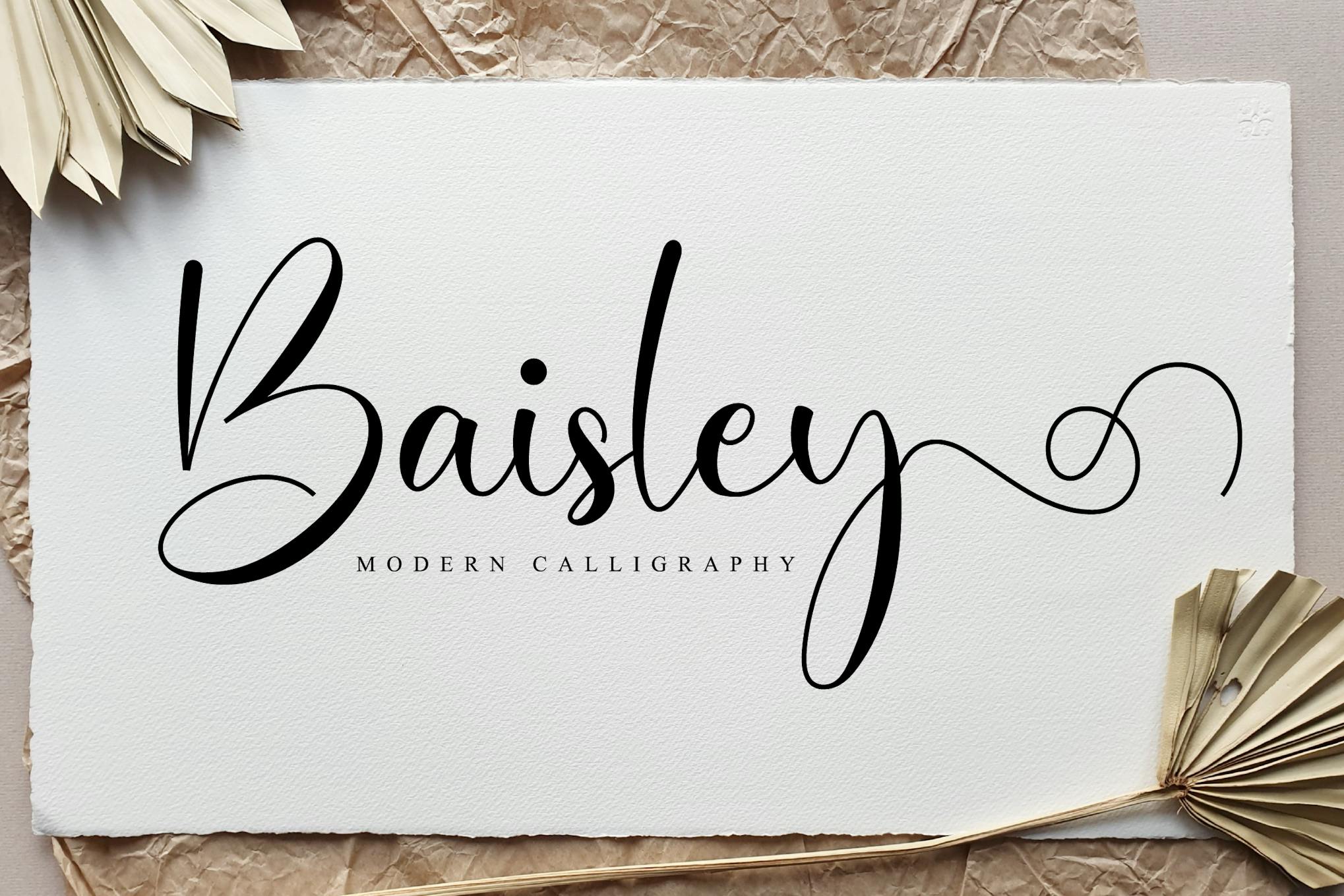
Baisley - Wedding Font
The Baisley - Wedding Font excels in graceful design applications including elegant wedding invitations, graceful bridal branding, sophisticated ceremony logos, refined product packaging, graceful business cards, elegant portfolios, sophisticated greeting cards, graceful social media graphics, elegant event signage, and refined marketing materials. Its graceful script style makes it perfect for projects requiring elegant sophistication that communicates grace and establishes refined brand positioning with audiences seeking graceful wedding experiences and elegant sophistication.
What makes the Baisley - Wedding Font truly exciting is its exceptional ability to capture the graceful elegance and sophisticated beauty of refined weddings through gracefully crafted letterforms. The font features flowing, graceful strokes with elegant flourishes and sophisticated proportions that create a distinctly refined appearance. Each character displays remarkable attention to graceful detail with elegant curves, sophisticated connections, and graceful spacing that give text a beautifully elegant, hand-lettered quality. The font's graceful character and elegant rhythm create an atmosphere of sophisticated elegance while maintaining graceful refinement and wedding authenticity.
The Baisley - Wedding Font family typically includes regular weight with extensive character coverage, featuring uppercase and lowercase letters, numerals, punctuation marks, and international characters. The typeface often incorporates stylistic alternates, contextual ligatures, and graceful swashes that enhance its signature elegance. These additional elements provide designers with creative flexibility to customize text appearance and achieve more natural-looking graceful handwriting that reflects the font's elegant and sophisticated character.
This graceful signature font distinguishes itself through its remarkable balance of elegant charm and sophisticated presentation. Unlike harsh or ungraceful fonts that lack elegant appeal, Baisley - Wedding Font embraces the power of graceful design to create sophisticated connections with elegant wedding audiences. The font's graceful character makes it essential for elegant wedding planners, sophisticated brands, and refined celebration businesses where creating graceful wedding experiences and elegant memories is fundamental to success in sophisticated wedding markets.
Baisley is a beautiful script font. It has a classy, elegant, and modern look. This font is the perfect fit for all of your logos, branding, social media, and crafty DIY projects. What's Included: Baisley - TTF, OTF, WOFF PUA encoded = Accessible in the Adobe Illustrator, Adobe Photoshop, Adobe InDesign, even work on Microsoft Word. PUA Encoded Characters - Fully accessible without additional design software. Each Font Has: Modern Handwritten Font Beautiful Swash (Ending tail) Beautiful Titling (Beginning tail) Special Ligatures Multilingual Support PUA Encoded Characters - Fully accessible without additional design software.